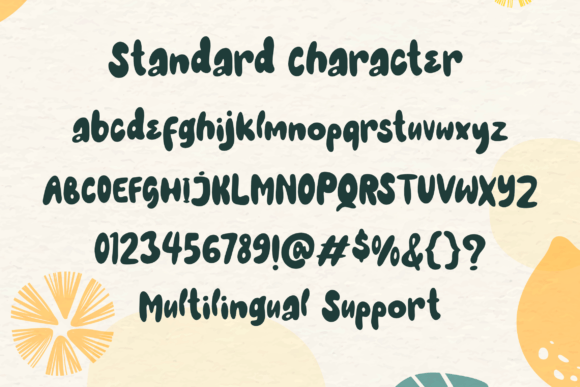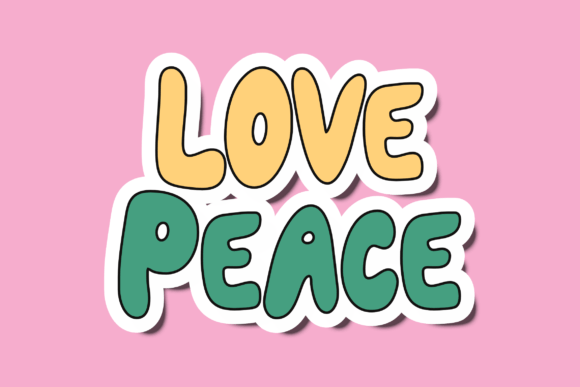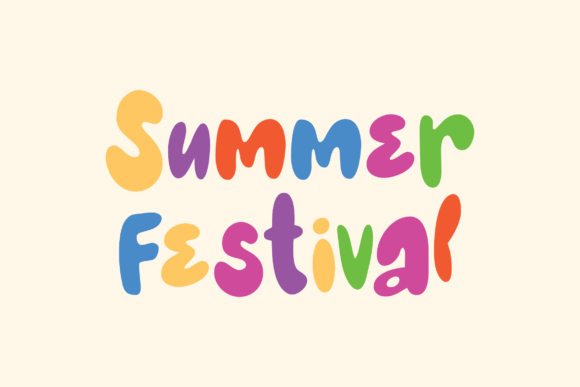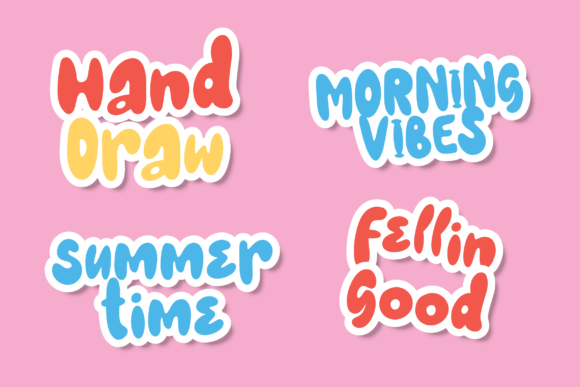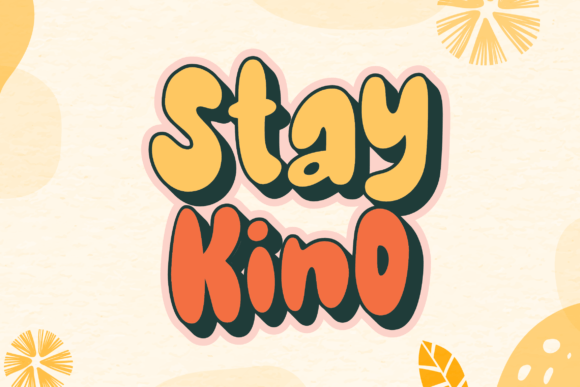
Introduction to Master Lemon Font
Do you ever find yourself stuck in a creative rut, searching for the perfect font to elevate your design and make it truly pop? That’s where the charming Master Lemon Font comes in – a delightful display handwritten font that’s sure to add a splash of fun and personality to your projects.
Whether you’re a seasoned designer or just starting out, having access to high-quality design resources like the Master Lemon Font can be a total game-changer. Not only is it free to download and use, but it also features a transparent background, making it incredibly versatile and easy to work with.
With the Master Lemon Font, you’ll be able to bring your creative visions to life in stunning high-quality – from quotes and greeting cards to business cards and presentations, the possibilities are endless!
Key Features of Master Lemon Font
- Master Lemon Font offers a transparent background, making it ideal for use on any design
- Unique, hand-drawn design elements that can add a personal touch to any creative project
- Perfect for use in graphic design, digital art, and other design applications
Honest Review: Master Lemon Font
I recently came across the Master Lemon Font, and I must say, it’s an interesting addition to any design resource. As a designer, I’m always on the lookout for high-quality fonts that can elevate a creative project. The Master Lemon Font is a great option, especially for those looking for a unique, citrus-inspired font.
What works well with the Master Lemon Font is its playful and quirky nature. It’s perfect for projects that need a bit of whimsy and personality. The font is highly customizable, making it easy to adjust the size, color, and style to fit your design needs. The transparent background also makes it easy to use as a overlay or texture in your design.
- ✨ Unique and quirky design
- ✨ Highly customizable
However, there are a few limitations to consider. The font may not be suitable for formal or professional projects, as it can come across as too playful. Additionally, the font may not be as versatile as some other fonts on the market.
Overall, I think the Master Lemon Font is a great addition to any design resource. While it may not be perfect, it’s a fun and creative option that can add a lot of personality to your projects. With a free download available, it’s definitely worth checking out.
Master Lemon Font
Getting the Most Out of Master Lemon Font
For the best results, use the Master Lemon Font with high-quality images and graphics. Experiment with different font sizes, colors, and styles to add visual interest to your design. You can also use the font in combination with other design elements, such as shapes and icons, to create a unique and creative project.
The Master Lemon Font is suitable for a wide range of creative projects, including business cards, brochures, and social media graphics. It’s also a great choice for personal projects, such as invitations and party decorations. With its high-quality design and transparent background, the Master Lemon Font is a versatile and practical design resource.